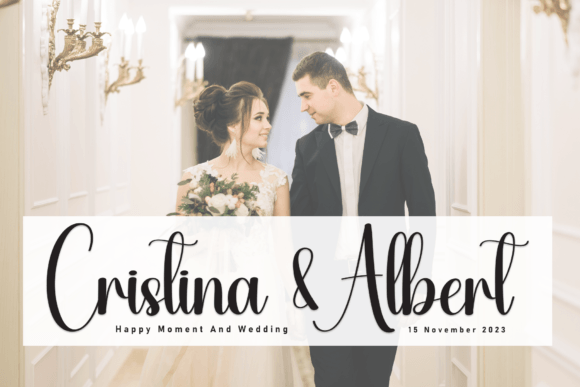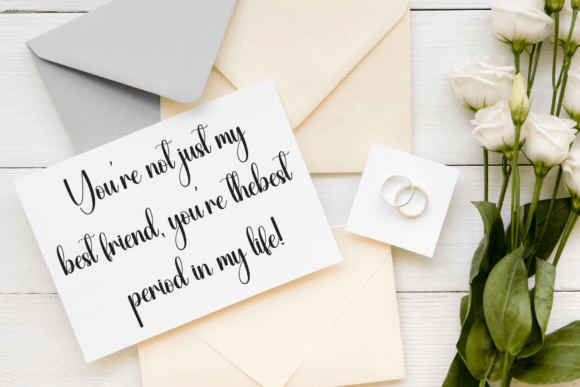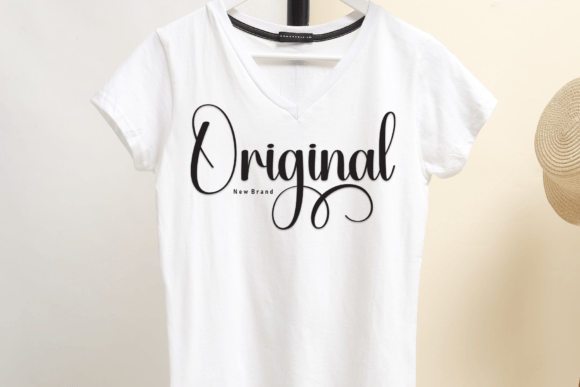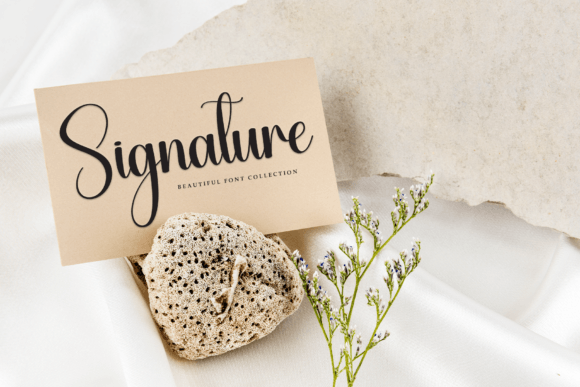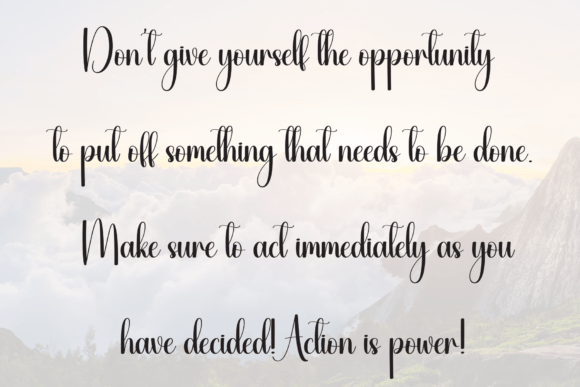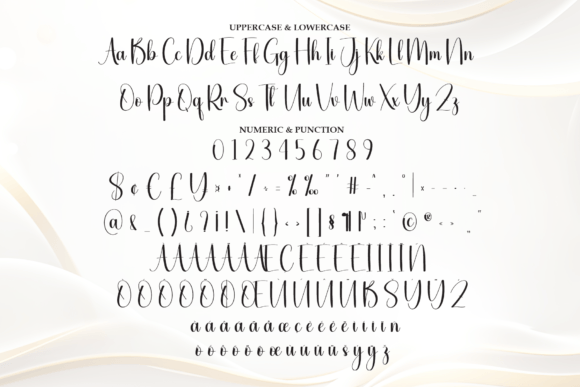
Elegant Font: Elevate Your Designs with a Stylish Touch
Are you searching for a font that exudes sophistication and elegance? Look no further than the Elegant font, a beautiful, flowing handwritten font that is sure to elevate your designs to the next level. With its incredibly distinct and timeless style, this font is perfect for designers and crafters looking to add a touch of luxury to their projects.
What is Elegant Font?
Elegant is a carefully crafted handwritten font that boasts a stylish touch, making it ideal for a wide range of applications, from wedding invitations and branding materials to social media graphics and more. Its unique, flowing script is both eye-catching and sophisticated, ensuring that your designs stand out from the crowd.
Key Features of Elegant Font
- Handwritten with love: Each letter has been meticulously crafted to create a truly unique and personal feel.
- Stylish touch: The font’s elegant style is perfect for adding a touch of sophistication to your designs.
- Timeless appeal: Unlike trendy fonts that quickly go out of style, Elegant font boasts a timeless quality that ensures your designs remain stylish for years to come.
- Versatile: Whether you’re working on a wedding invitation, a logo, or a social media graphic, Elegant font is the perfect choice.
Why Choose Elegant Font?
So, why should you choose Elegant font for your next project? Here are just a few compelling reasons:
- Add a touch of luxury: With Elegant font, you can add a touch of luxury to your designs, making them perfect for high-end brands, wedding invitations, and more.
- Stand out from the crowd: In a world where generic fonts are a dime a dozen, Elegant font offers a refreshing change of pace, ensuring your designs stand out from the crowd.
- Easy to read: Despite its elegant style, Elegant font is surprisingly easy to read, making it perfect for body text and headings.
How to Use Elegant Font in Your Designs
Now that you’re convinced of the beauty and versatility of Elegant font, let’s explore some ways you can use it in your designs:
- Wedding invitations: Elegant font is perfect for wedding invitations, adding a touch of romance and sophistication to your designs.
- Branding materials: Use Elegant font to create stunning branding materials, such as logos, business cards, and letterheads.
- Social media graphics: Add a touch of elegance to your social media graphics, including Facebook posts, Instagram stories, and Twitter headers.
- Packaging design: Use Elegant font to create beautiful packaging designs that stand out on store shelves.
Tips for Getting the Most Out of Elegant Font
To get the most out of Elegant font, here are a few tips to keep in mind:
- Experiment with different sizes: Elegant font looks stunning in a range of sizes, from large headings to smaller body text.
- Pair with complementary fonts: Try pairing Elegant font with complementary fonts to create a unique and visually appealing combination.
- Use it sparingly: While Elegant font is beautiful, it can be overwhelming if overused. Use it sparingly to create maximum impact.
In conclusion, Elegant font is a stunning, flowing handwritten font that is sure to elevate your designs to the next level. With its incredibly distinct and timeless style, this font is perfect for designers and crafters looking to add a touch of luxury to their projects. Whether you’re working on a wedding invitation, branding materials, or social media graphics, Elegant font is the perfect choice. So why wait? Fall in love with Elegant font today and create spectacular designs that leave a lasting impression!